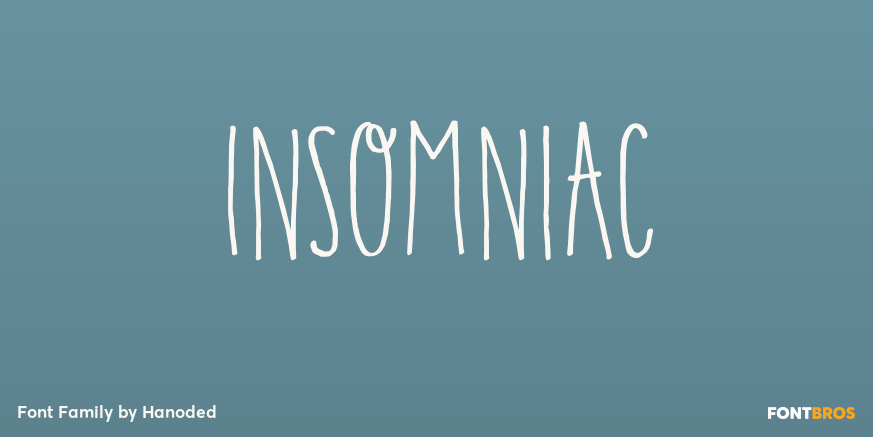
About Insomniac
Insomniac is a tall, narrow, handwritten typeface. A little rough, a little shaky, a little uneven. The idea for this font came to me in the middle of the night – hence the name. Insomnia is an all caps font, but upper and lower case differ and glyphs…